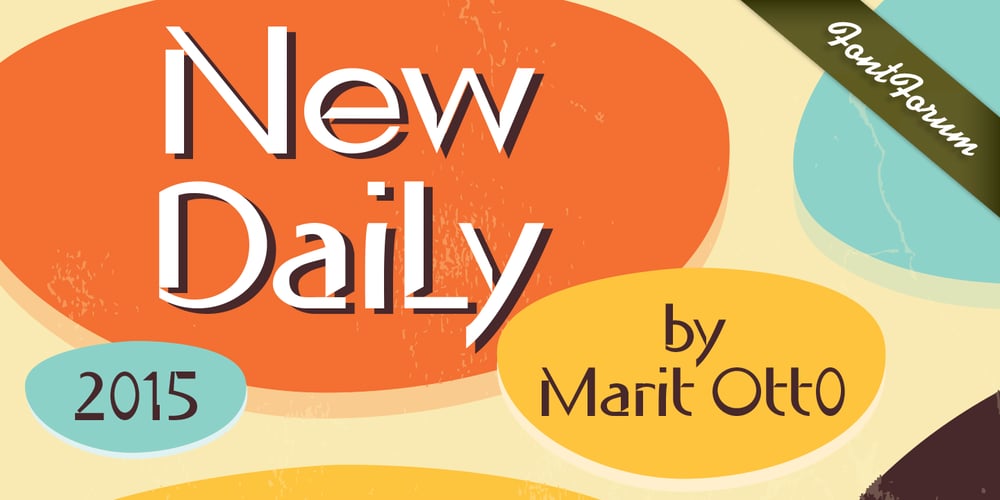
New Daily Font Family was designed by Marit Angenita Otto and published by URW Type Foundry. New Daily contains 1 styles and family package options. Marit Otto about New Daily: This typeface design has a modern but yet classic appearance. That is why she listens to the name New Daily. I took some elements from the Art Nouveau and Art Deco (type) styles. And modernized it by cultivating the beautiful curved features of both styles and playing with the stylish fluid lines and open structures. By adding a bit of the no-nonsense office look of a typeface like Nimbus Sans a new but familiar look occurs. This typeface is very readable and useful for many purposes. It has a playful distinguished character.